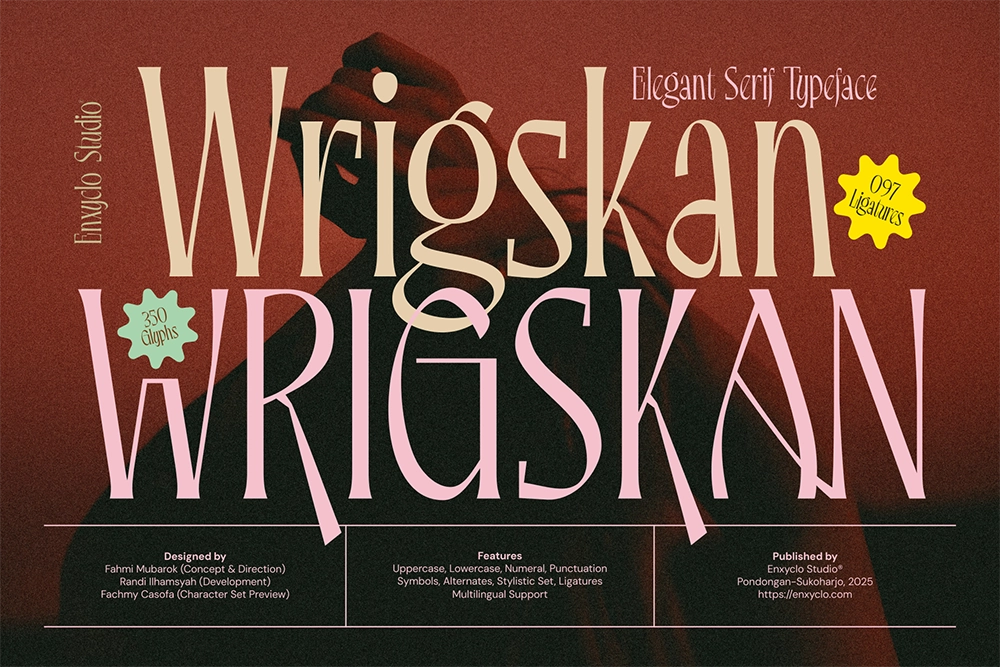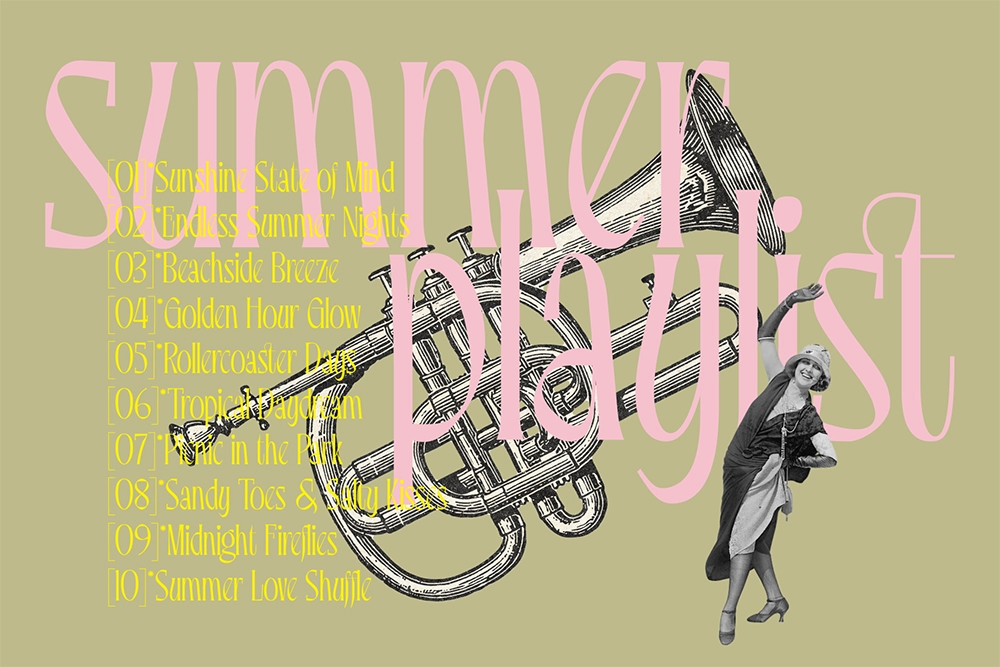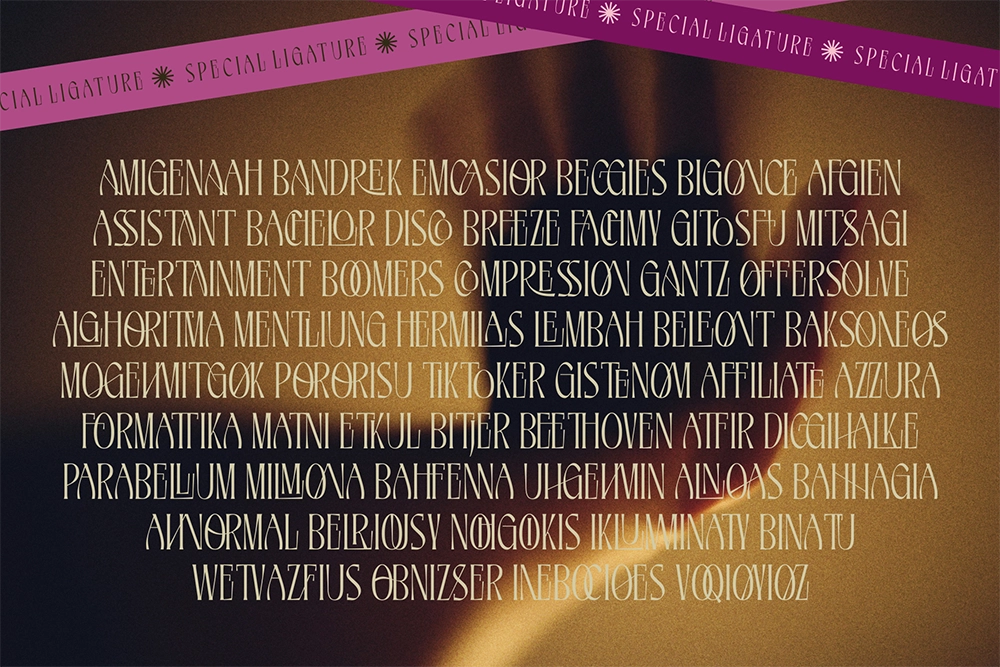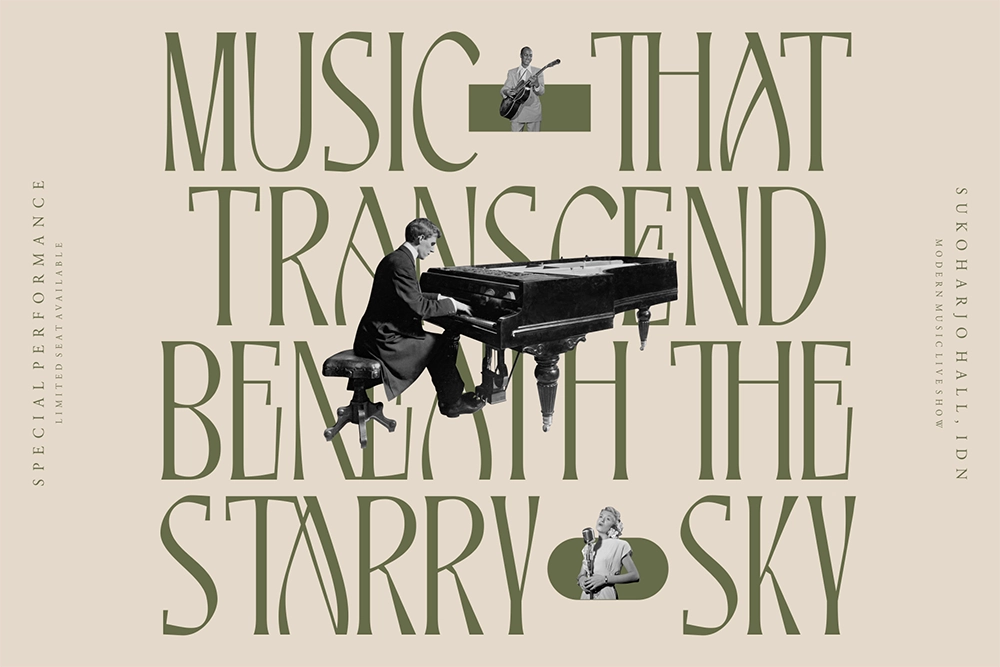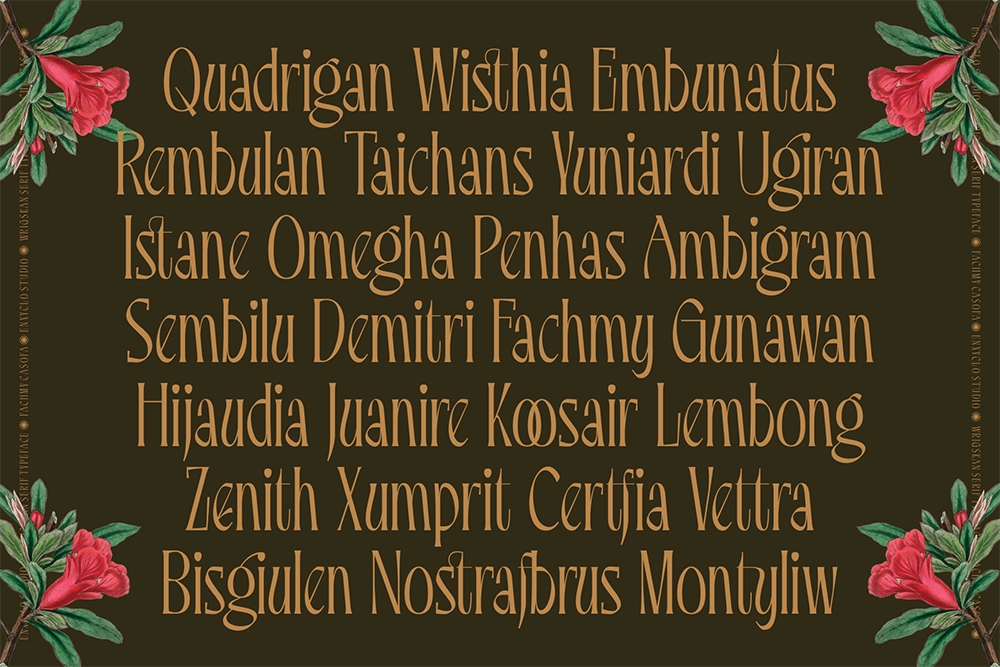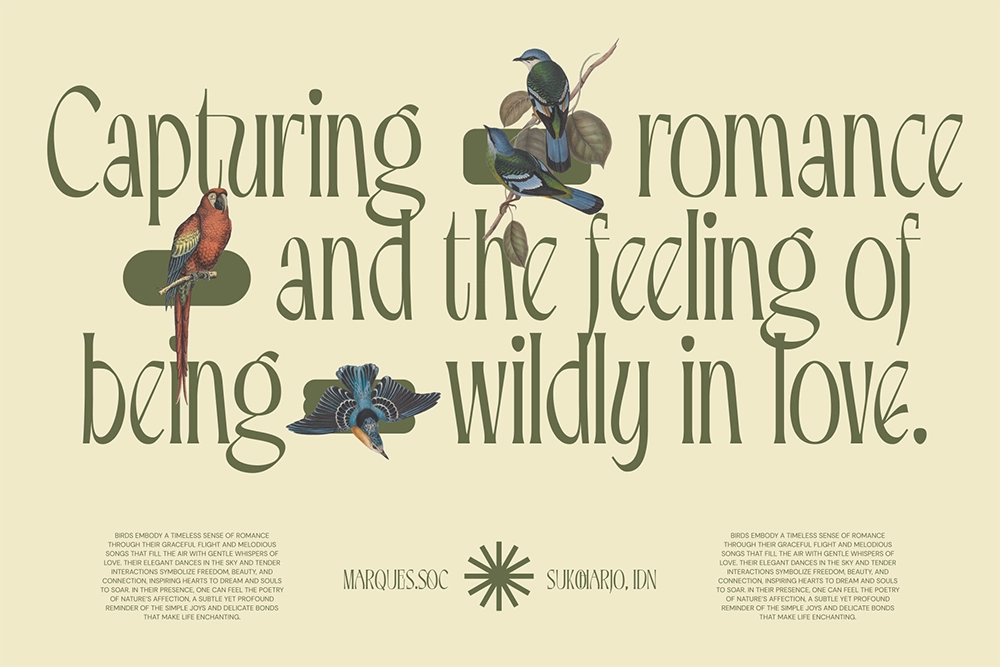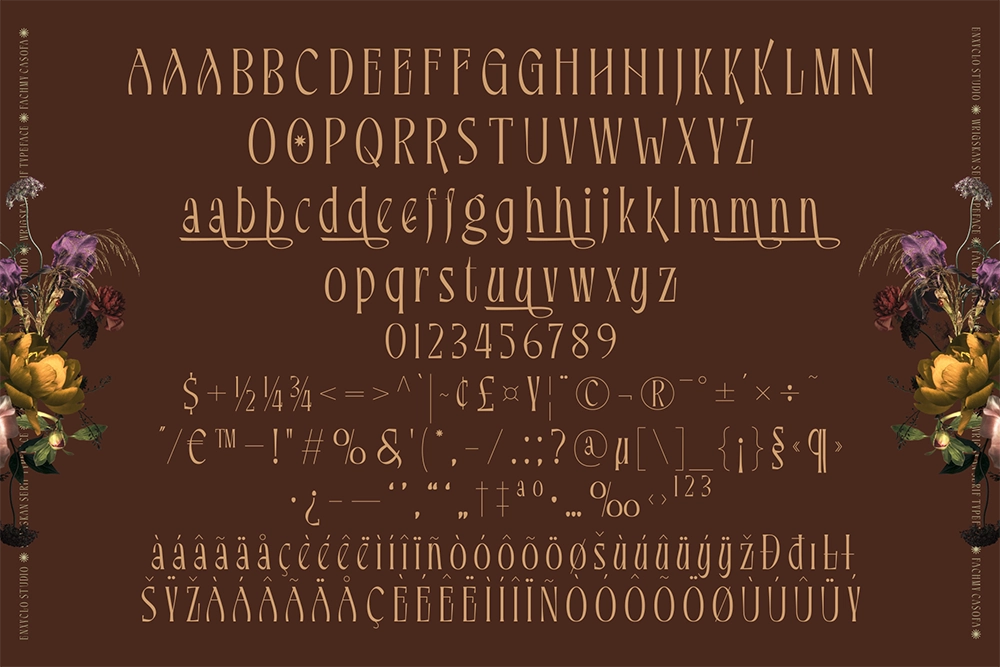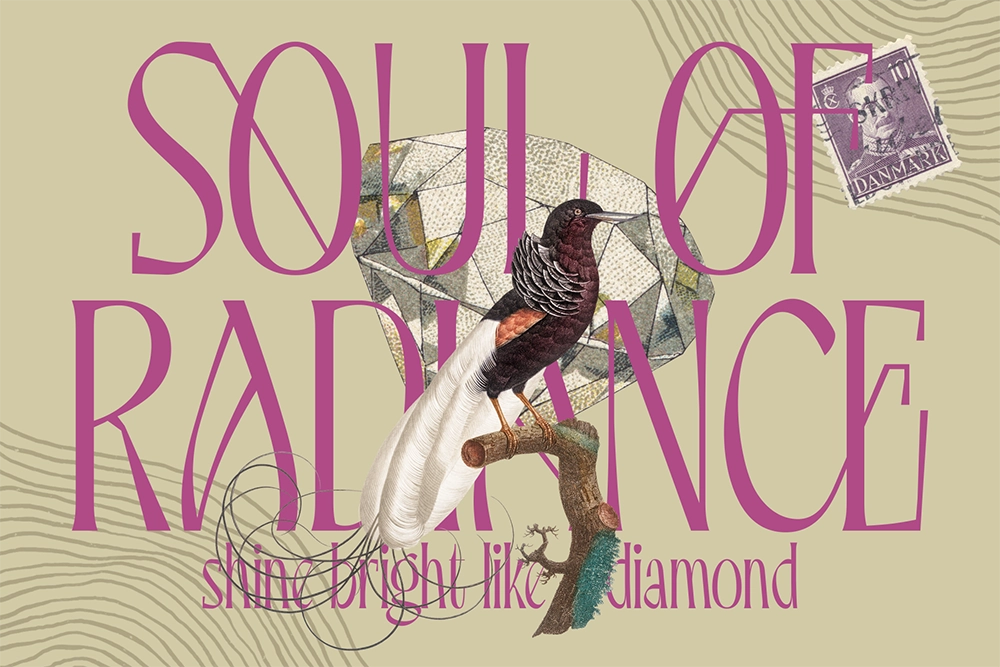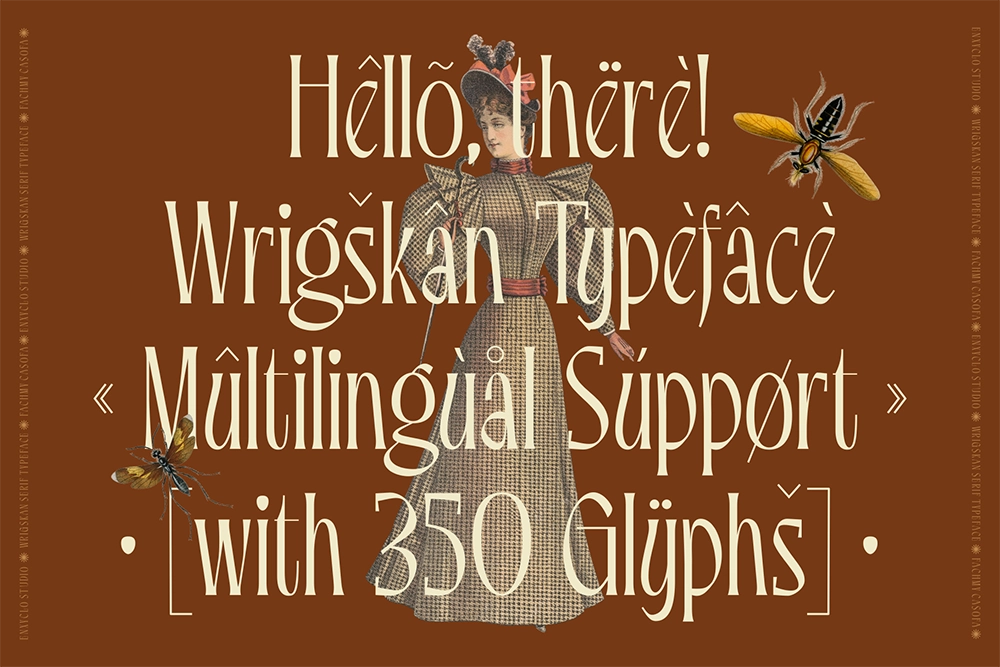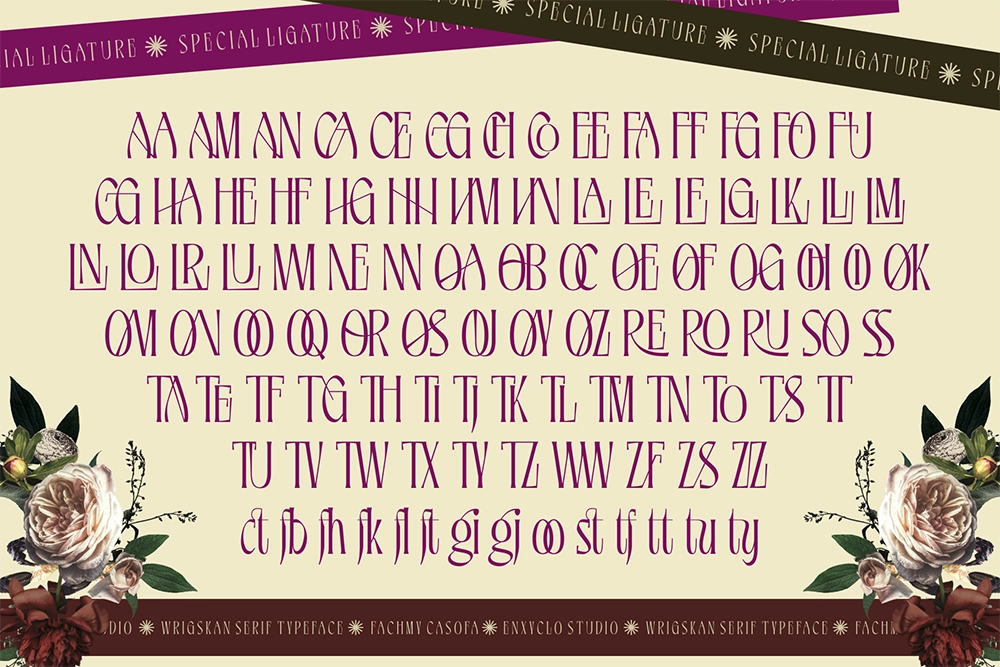
Wrigskan - Elegant Luxury Serif Typeface
Wrigskan – Elegant Serif Typeface is a refined and luxurious serif font created to bring sophistication and prestige to modern branding. Designed with graceful proportions and stylish serif details, Wrigskan blends classic elegance with contemporary aesthetics, making it an excellent choice for fashion, beauty, and premium visual identities. Its clean structure and elegant letterforms create a polished look that enhances logos, packaging, editorials, and high-end brand presentations.
Built for designers who want expressive yet sophisticated typography, Wrigskan includes an extensive collection of ligatures and stylistic alternates that allow for unique and elegant compositions. Whether used for luxury cosmetic branding, boutique packaging, editorial headlines, or modern logo design, this typeface delivers a glamorous and timeless character that elevates every design project.
• 350 Glyphs
• 97 Special Ligatures
• Stylistic Set 1–2 & Alternates
• Uppercase & Lowercase Characters
• Numerals, Punctuation & Symbols
• Elegant Luxury Serif Style